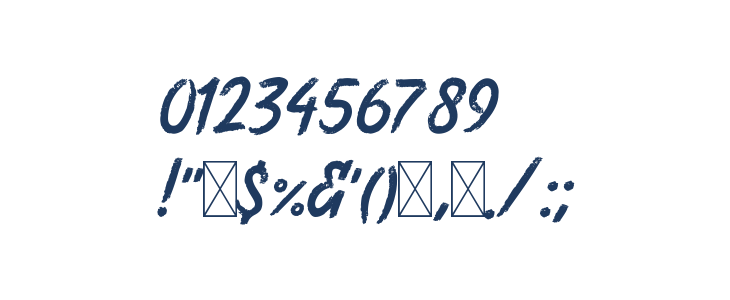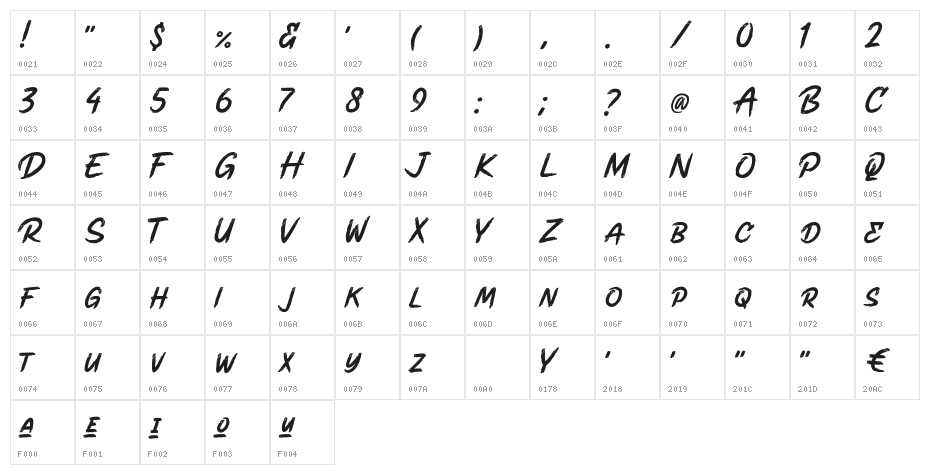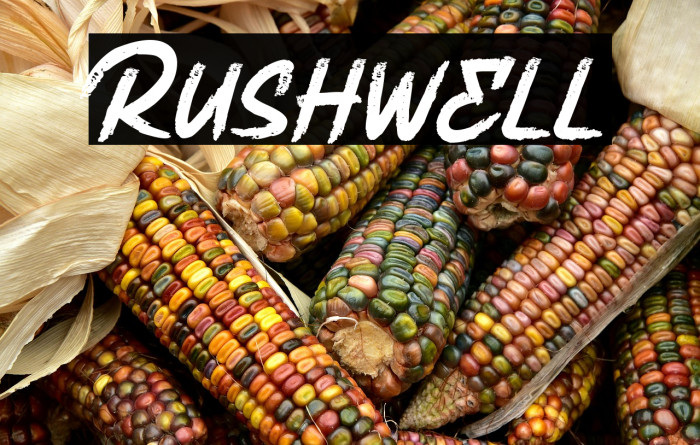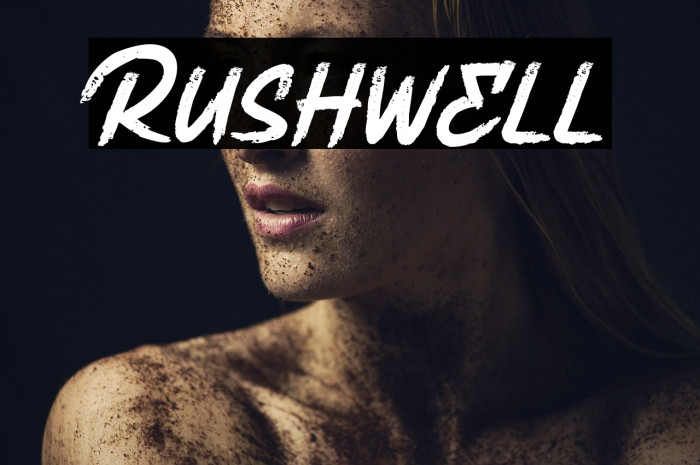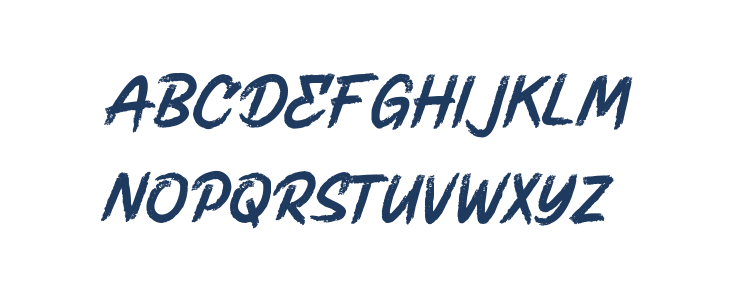
Rushwell Font
This font features a bold, expressive script style with a brush-like texture that gives it a dynamic and energetic appearance. The letters are slightly slanted, adding a sense of movement and fluidity. The strokes are thick and uneven, creating a hand-painted effect that is both artistic and informal. The uppercase and lowercase letters are distinct, with the uppercase being more prominent and the lowercase maintaining a consistent flow. Numbers and special characters follow the same stylistic approach, ensuring uniformity across all glyphs. This font is ideal for projects that require a personal touch or a creative flair.
| Use Case | Logos, Headlines, Posters |
| Proposed Projects | Ideal for branding, posters, invitations, and any design needing a personal, artistic touch. |